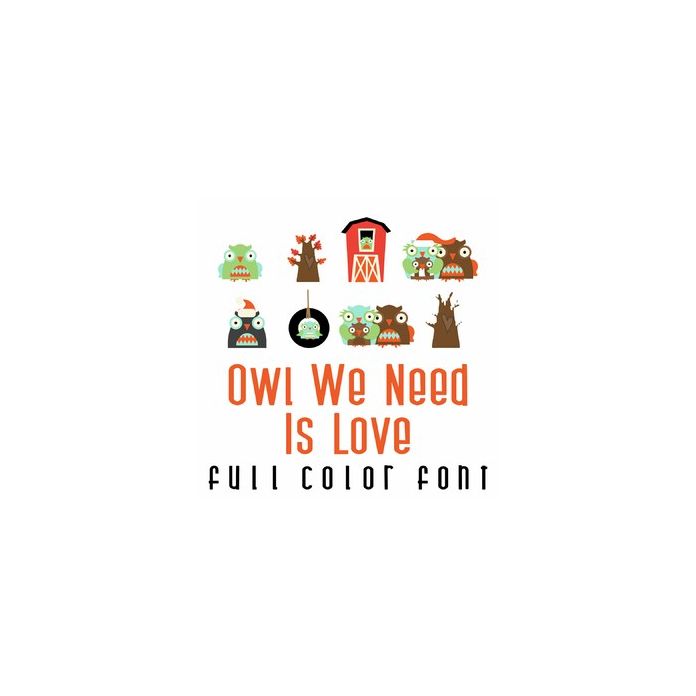
This adorable full-color doodlebat font features 26 adorable owls, puns, and owl imagery that is perfect for cards, crafts, gifts, scrapbook pages, planner stickers, and more!